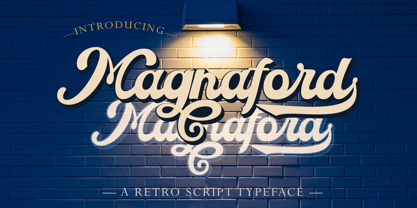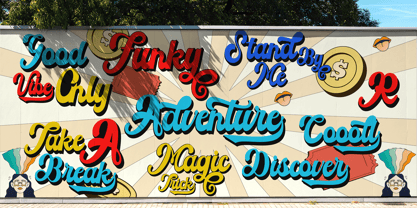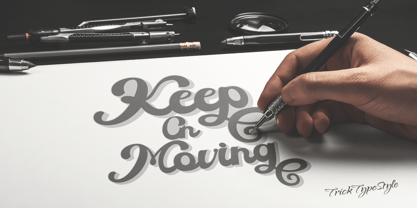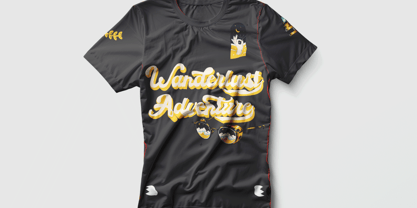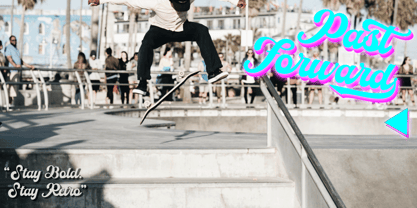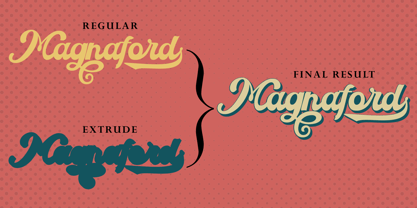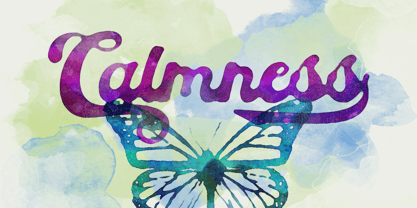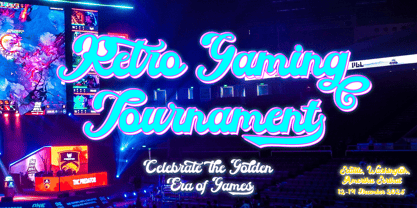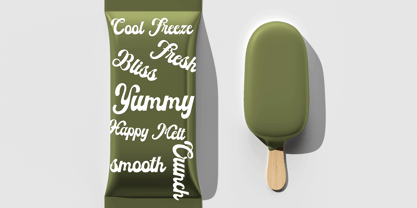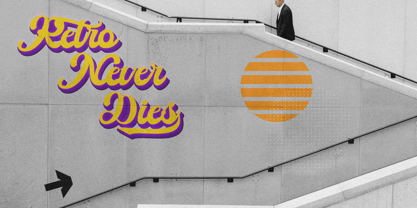
Magnaford
by Trick Type Style
The Magnaford Font Family was designed by Rizki Ramadhan and published by Trick Type Style. Magnaford contains 2 styles and family package options. More about this family
Magnaford brings a touch of timeless retro elegance, blending classic charm with a modern twist. With bold strokes and smooth curves, this script typeface is designed to capture attention while keeping a stylish, vintage feel.
Perfect for logos, posters, signage, branding, packaging, and artistic typography, Magnaford evokes the warm, nostalgic atmosphere of retro signage while staying fresh and versatile for today’s designs.